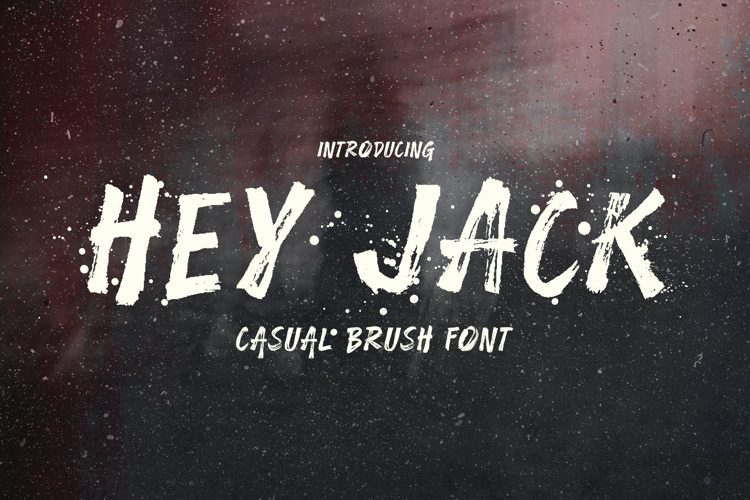
Hey Jack Font
Hey Jack is a hand-drawn brush font with rough and casual letters. It's great for logos, branding, print projects and any attention drawing headline.